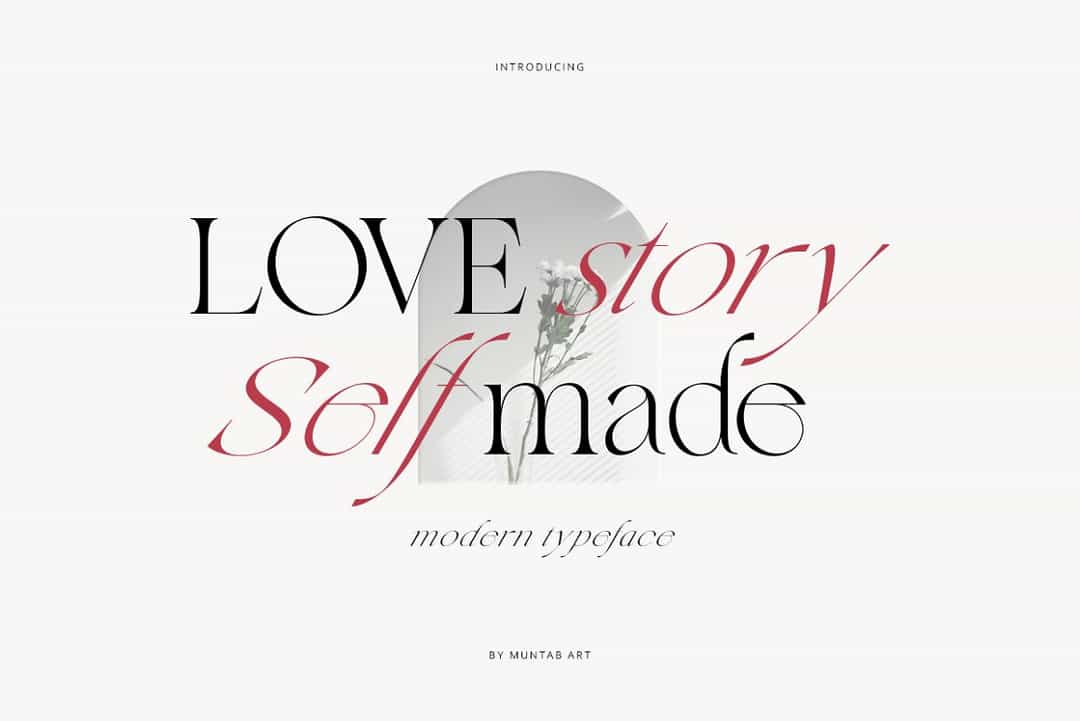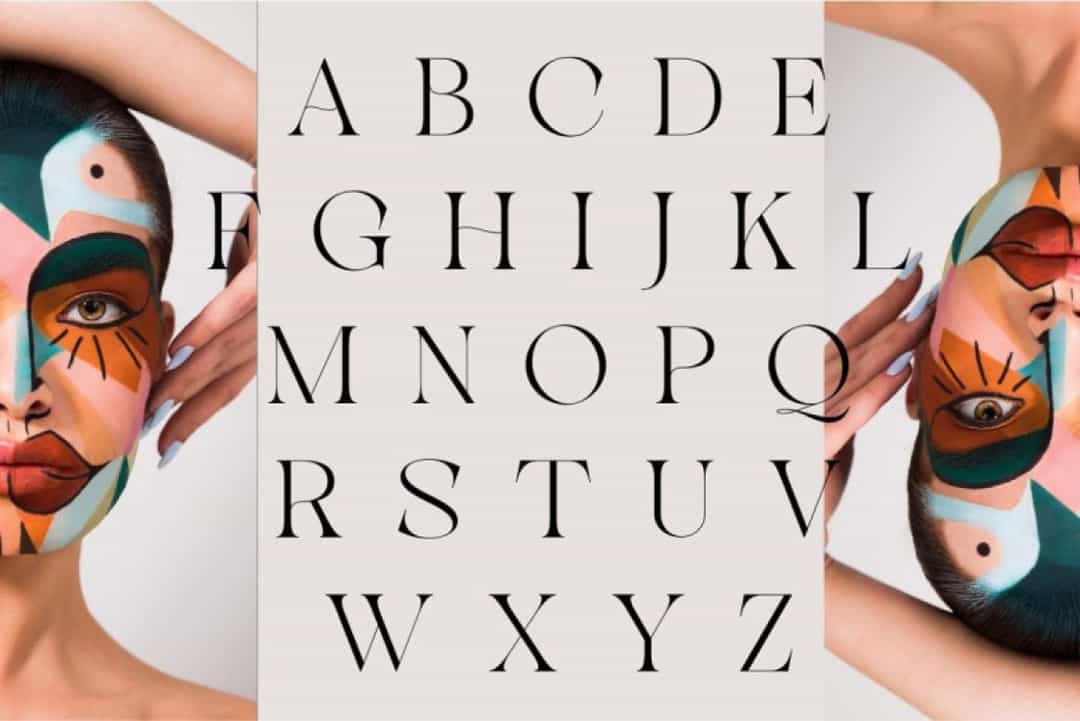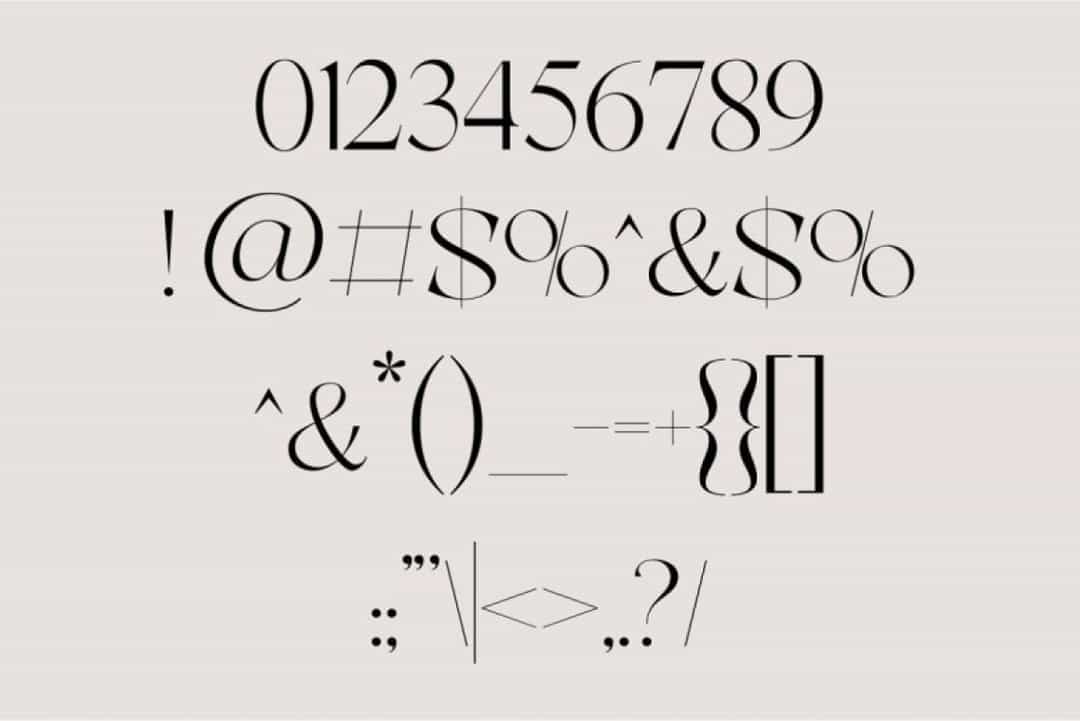
Love Story Self-Made Fonts include lowercase and uppercase numerals, letters and an extensive variety of punctuation marks in a modern serif font design for poster design, branding, web design badges badges illustrations or other designs.